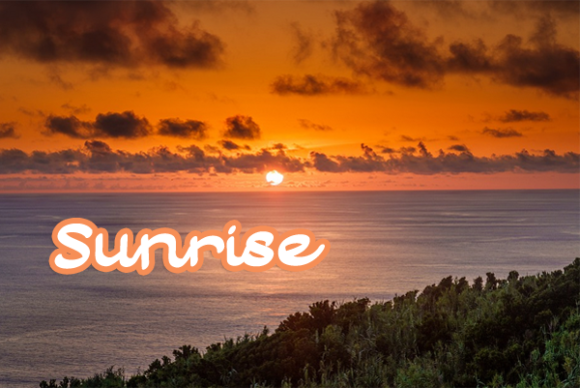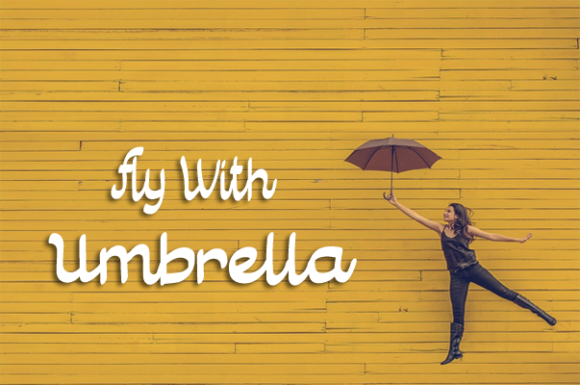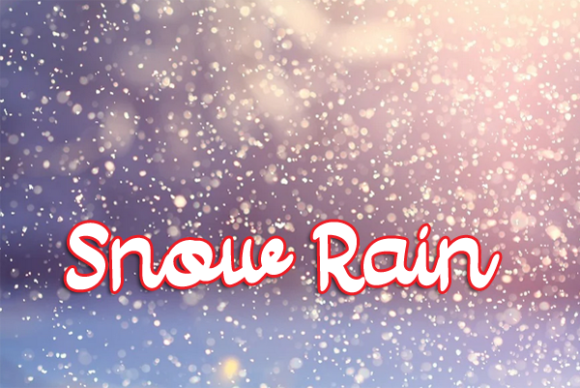
Introduction to Liguria Font
One such treasure is the Liguria Font, a cute and simple lettered handwritten font that has the potential to take your designs to the next level. With its high-quality design and transparent background, this font is a valuable asset to any designer’s library.
- Designed with a unique, elegant aesthetic, making it perfect for branding and editorial content
Honest Review: Liguria Font
As a designer, I’m always on the lookout for high-quality fonts to enhance my creative projects. Recently, I came across the Liguria Font, and I’m excited to share my thoughts on this design resource.
What works well: ✨ Liguria Font is a beautifully crafted font with a sleek, modern design. The transparent background makes it easy to use in a variety of design applications, from digital interfaces to print materials. The font’s clean lines and minimalist aesthetic make it perfect for projects where you want to convey a sense of sophistication and elegance.
What doesn’t work well: ⚠️ One of the limitations of the Liguria Font is its limited character set. While it’s perfect for headlines and titles, it may not be suitable for longer blocks of text. Additionally, the font’s transparency can sometimes make it difficult to read, especially in low-contrast designs.
Overall impression: The Liguria Font is a solid addition to any designer’s toolkit. Its high-quality design and transparent background make it a versatile resource for a wide range of creative projects. If you’re looking for a sleek, modern font to elevate your designs, the Liguria Font is definitely worth considering. Plus, it’s free to download, making it an excellent value for designers on a budget.
- Perfect for headlines and titles
- May not be suitable for longer blocks of text
Liguria Font is ideal for creative projects, such as graphic design, digital art, and branding. Its high-quality design and transparent background feature make it a versatile resource for various design applications.